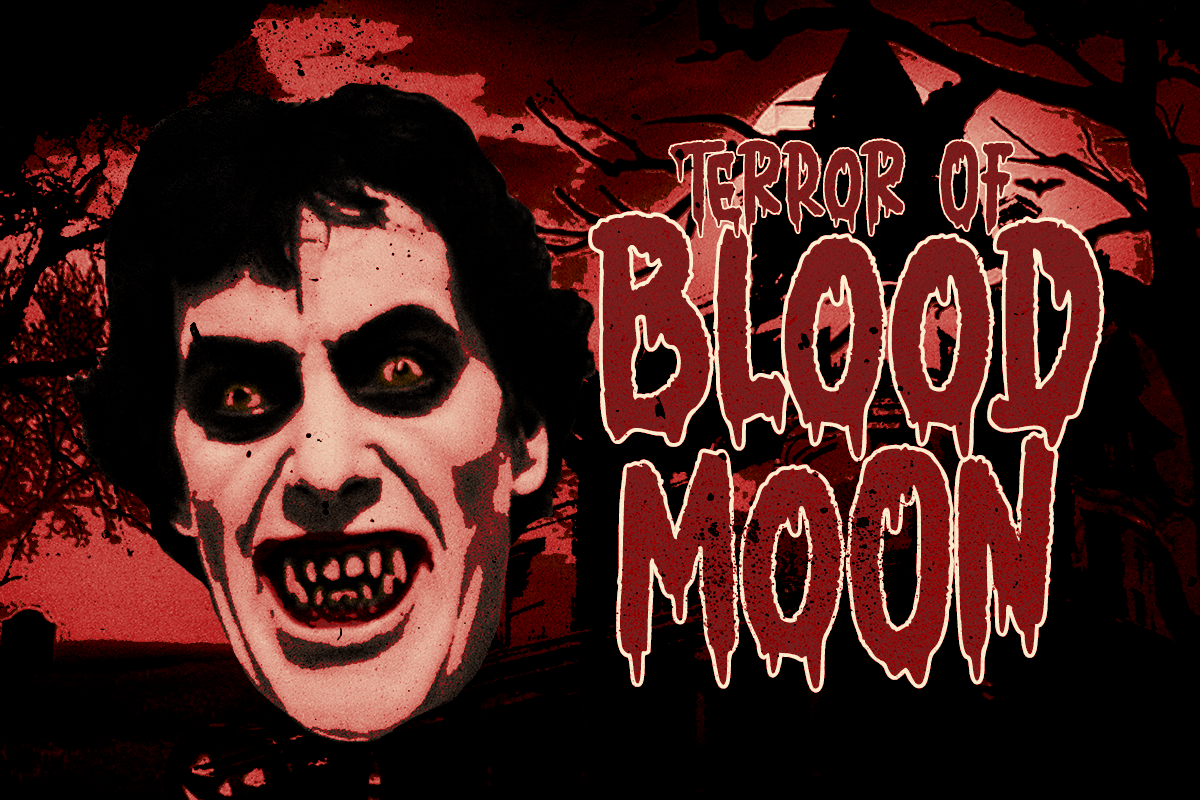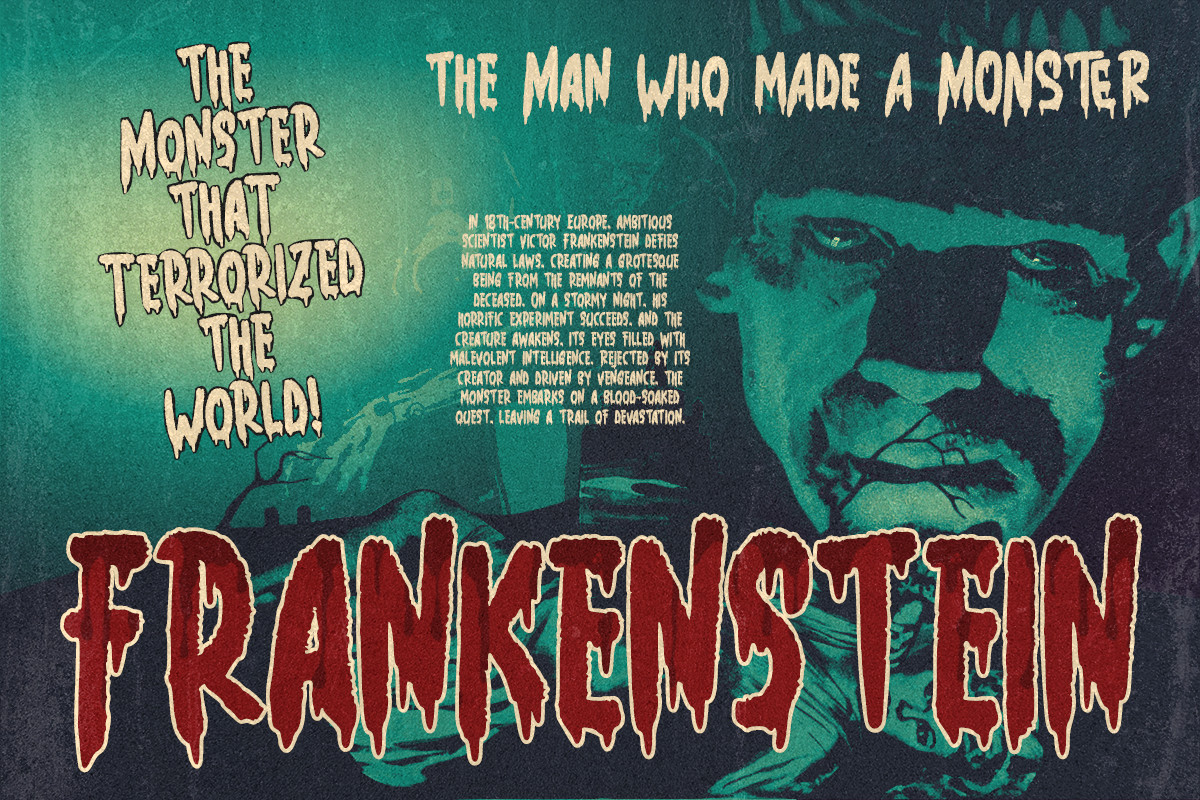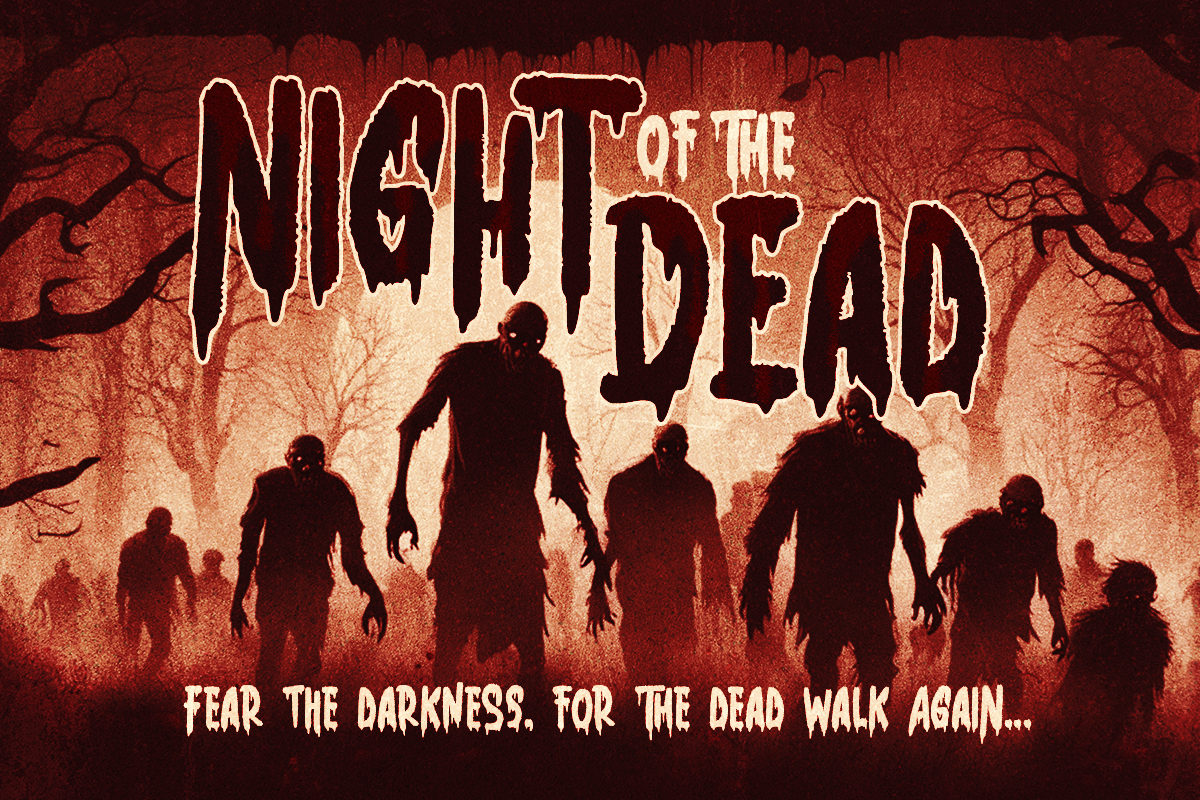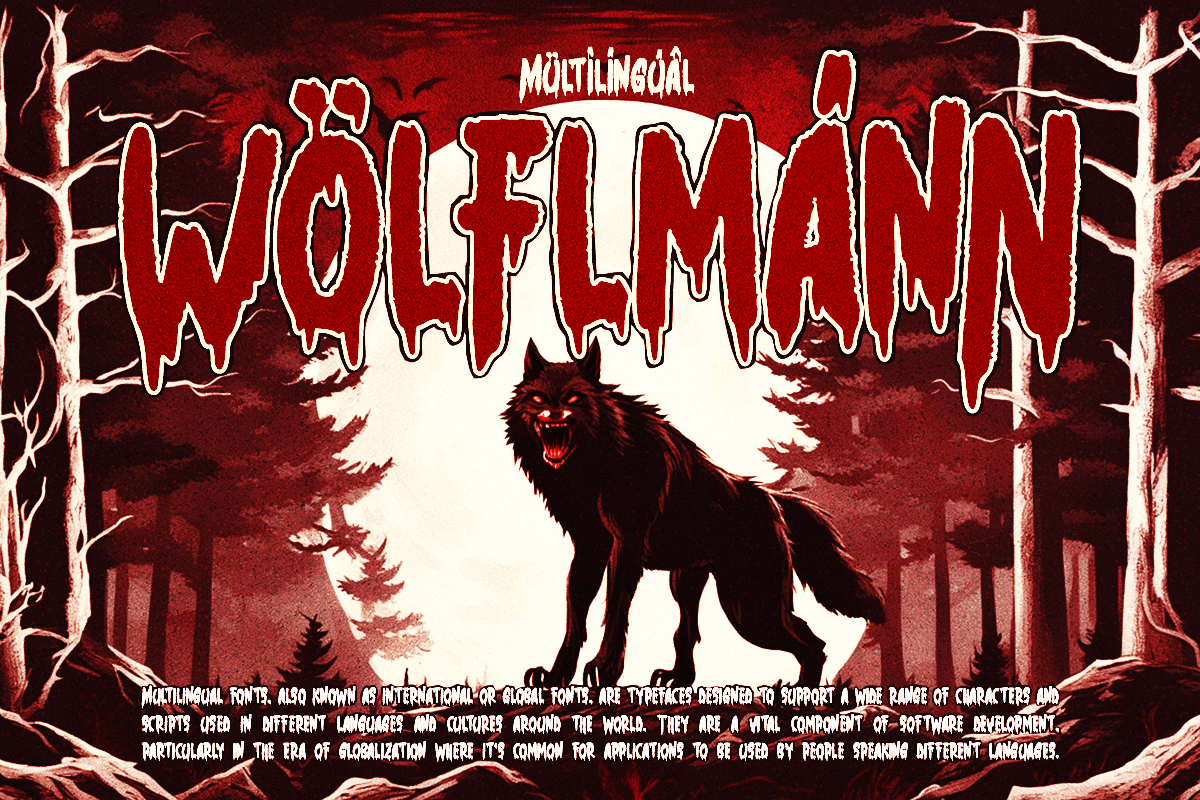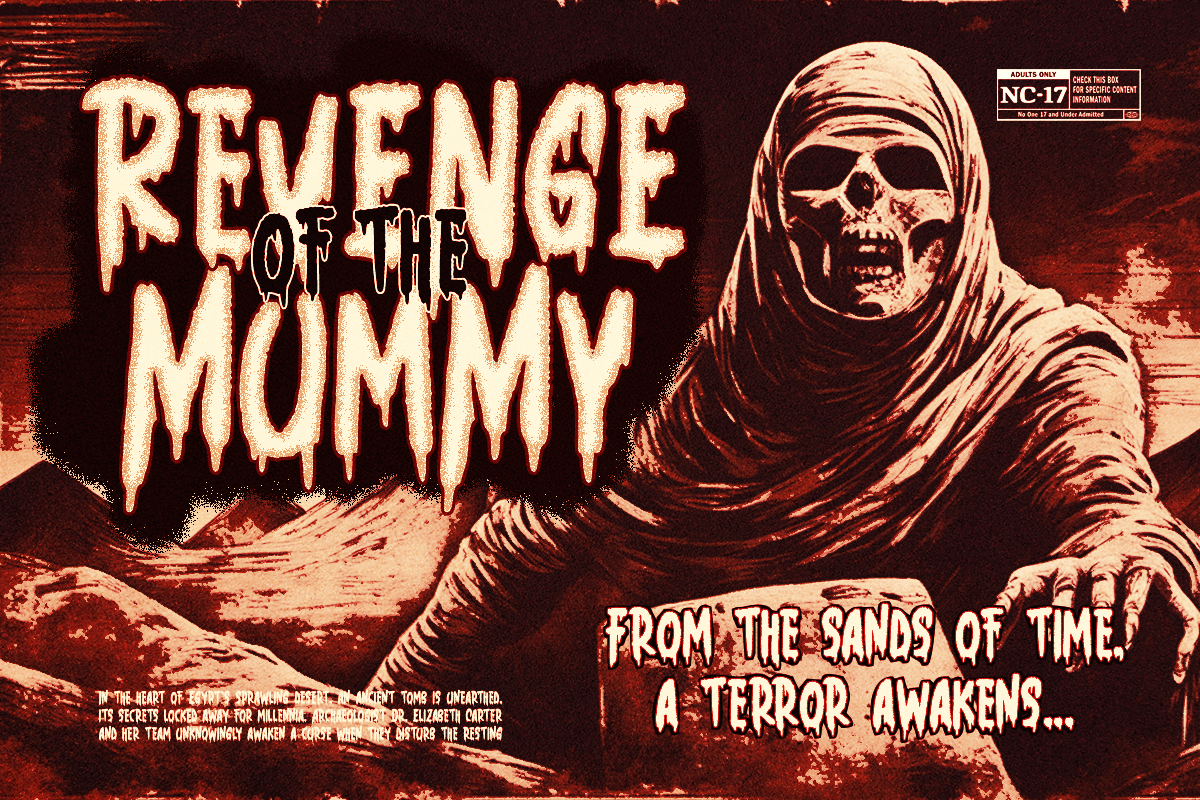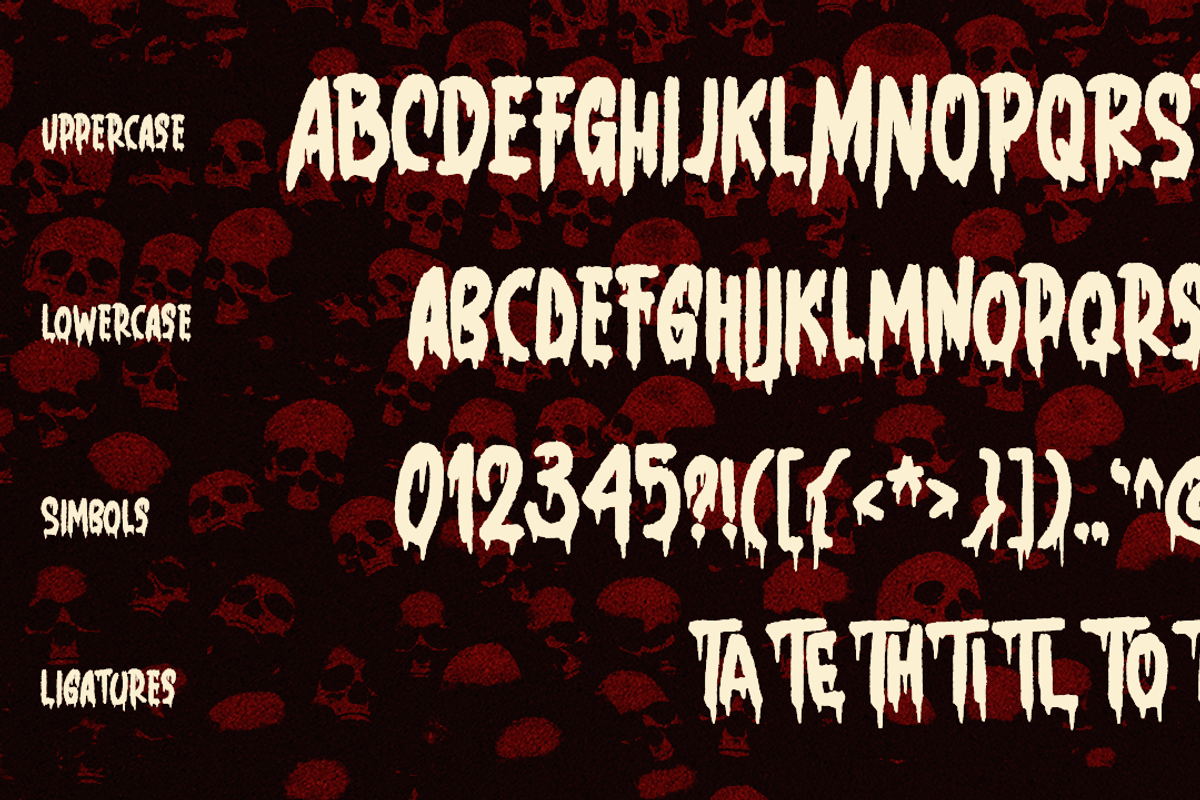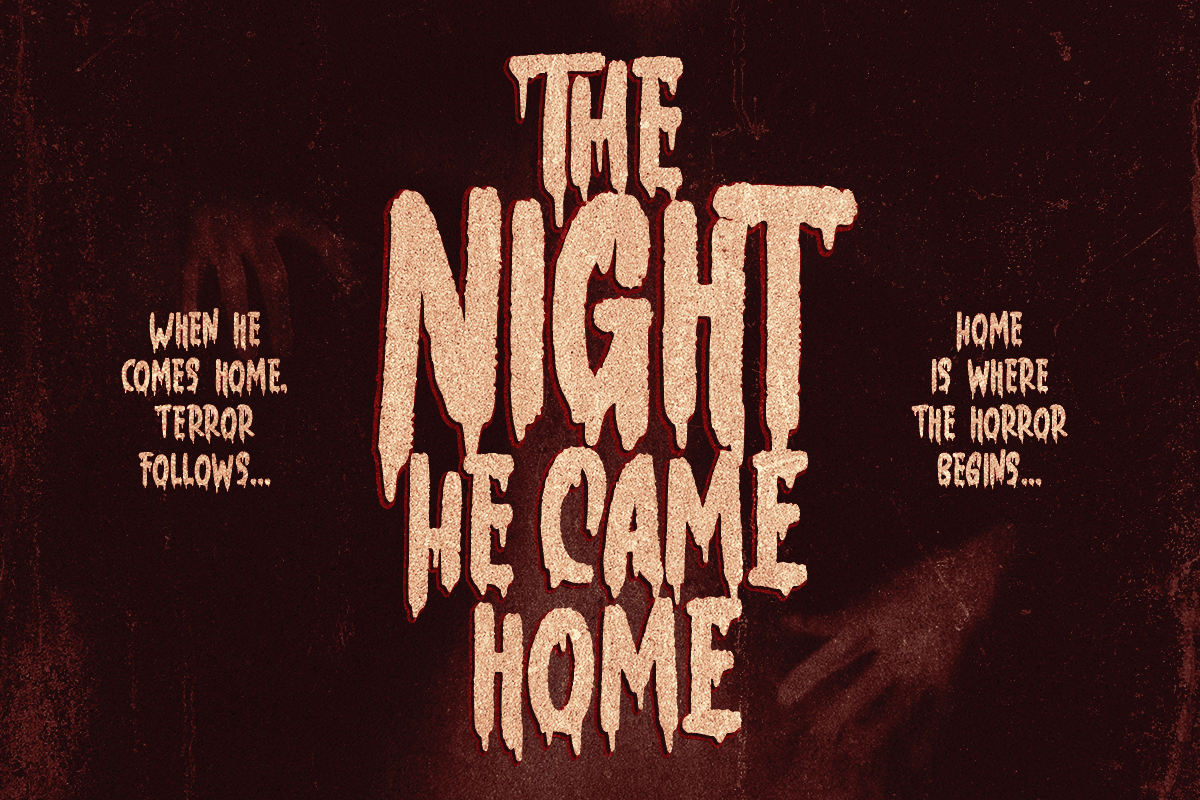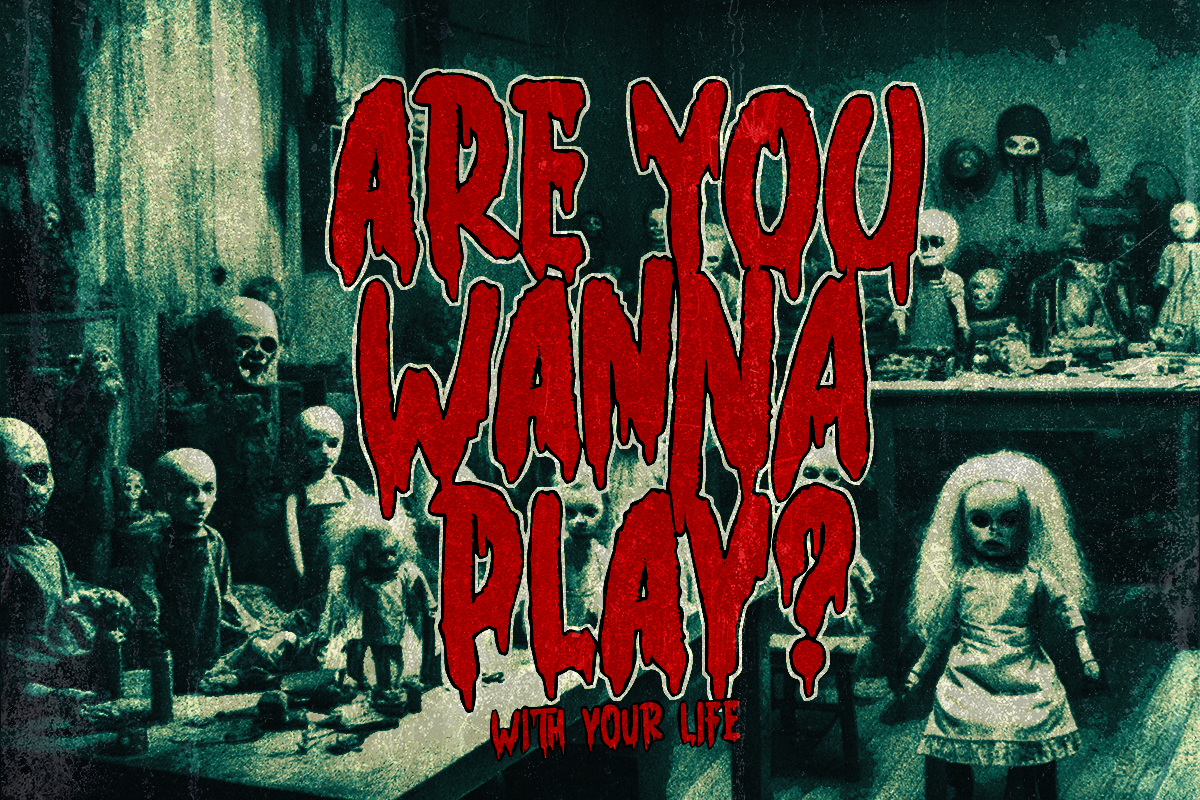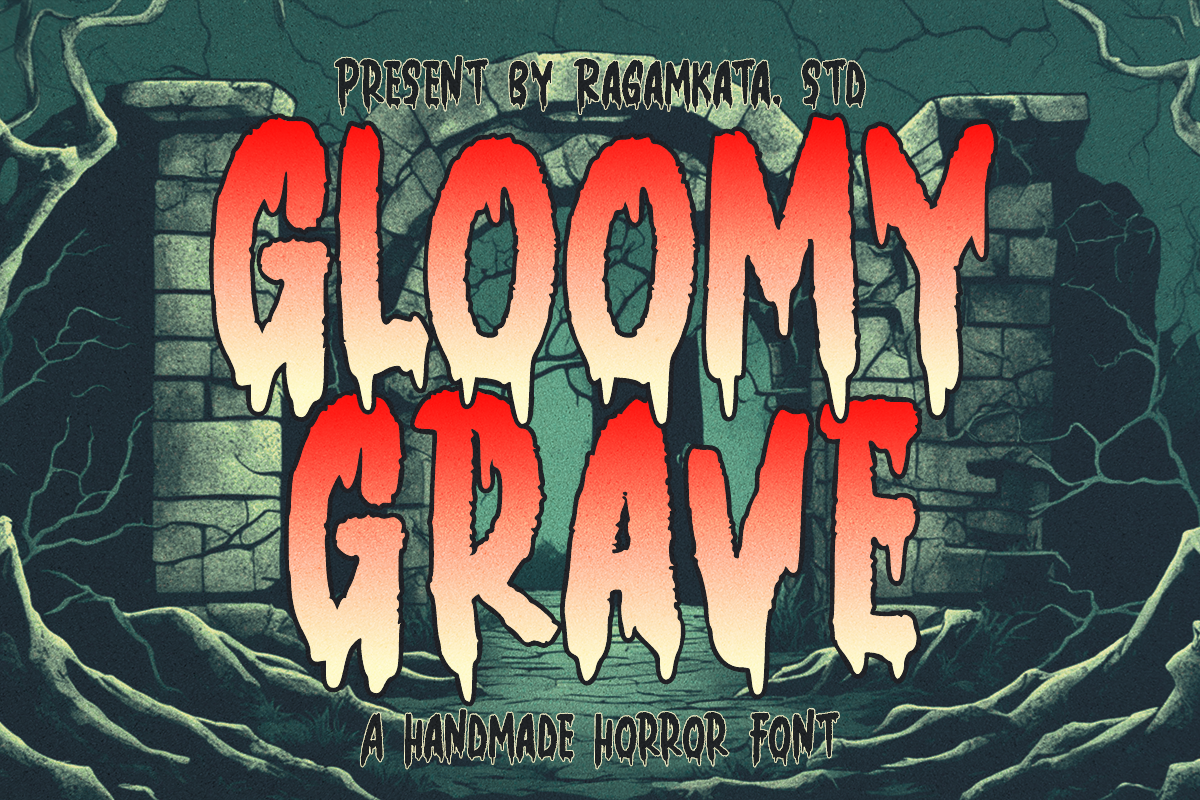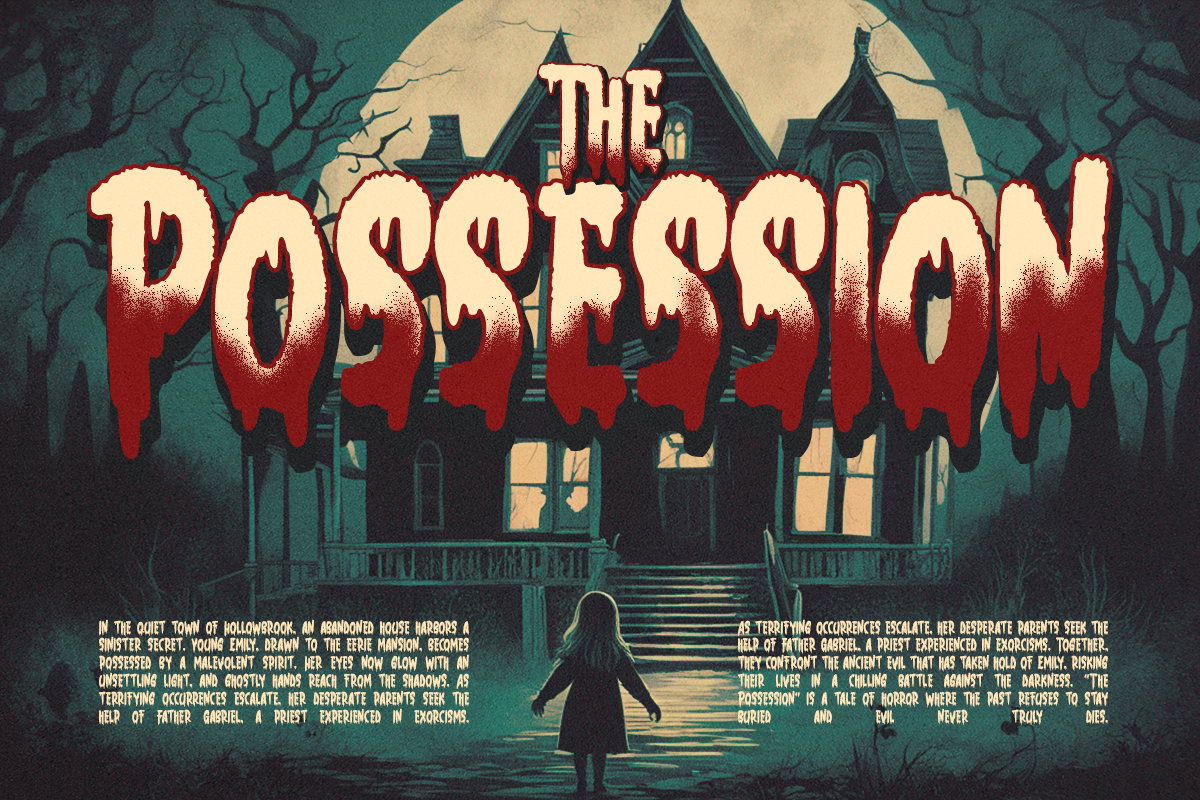
Gloomy Grave - Horror Font
Introducing Gloomy Grave, a handmade horror font that captures the essence of Halloween and spine-chilling terror. This font blends the eerie, rough textures of haunted nights with the sinister charm of classic horror comics, making it perfect for creating terrifyingly authentic designs.
With its creepy, blood-soaked letters, Gloomy Grave drips with dark allure. Each character is crafted to evoke the haunting movements of ghosts and the jagged edges of ghouls clawing their way from the grave. Whether you're designing a Halloween event poster, a horror movie title, or anything that needs a touch of the macabre, Gloomy Grave will make your work stand out with its uniquely sinister style.
- Two styles: Regular and Outline
- Uppercse & Lowercase
- Punctuation & Number
- Ligatures Characters (Bonus)